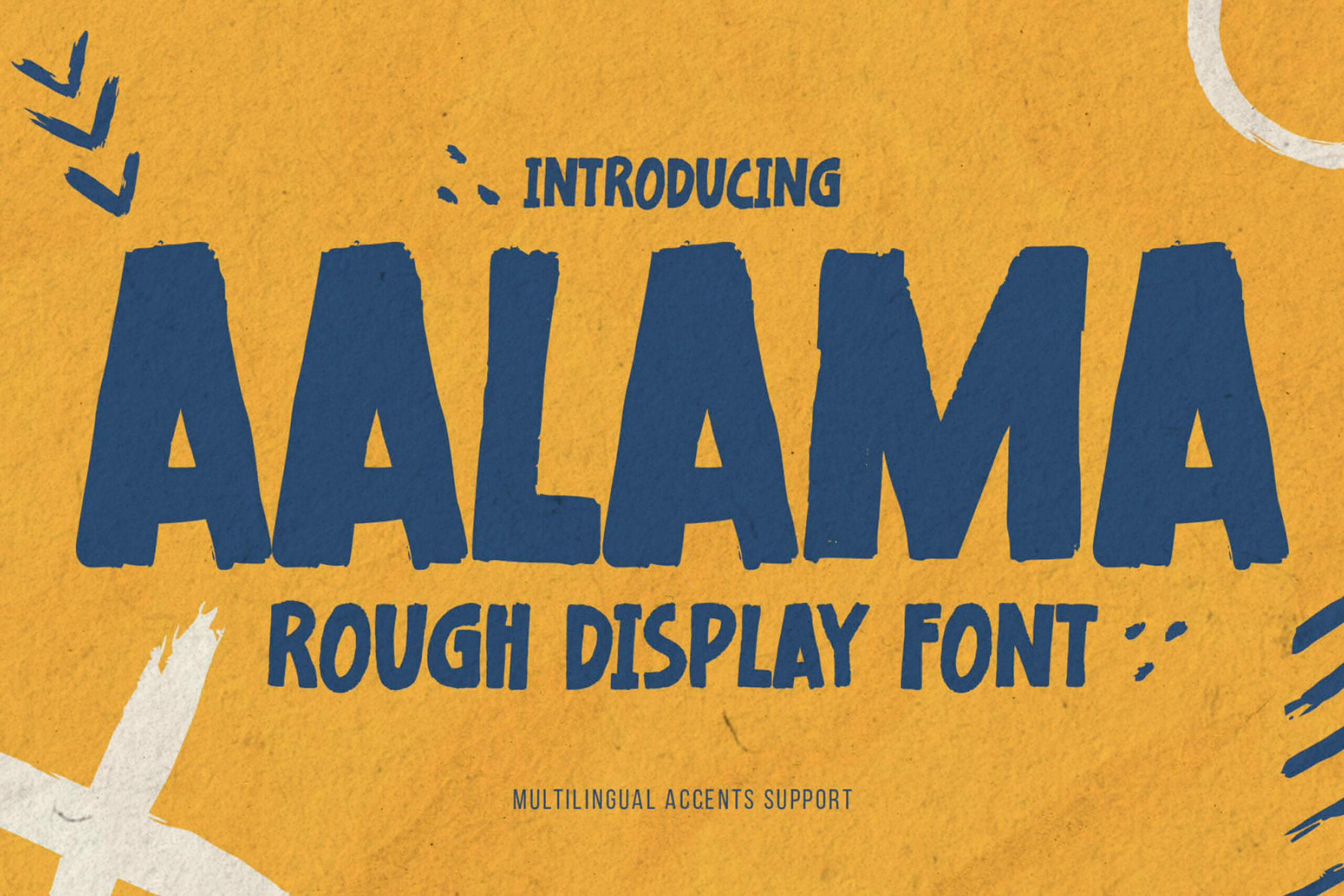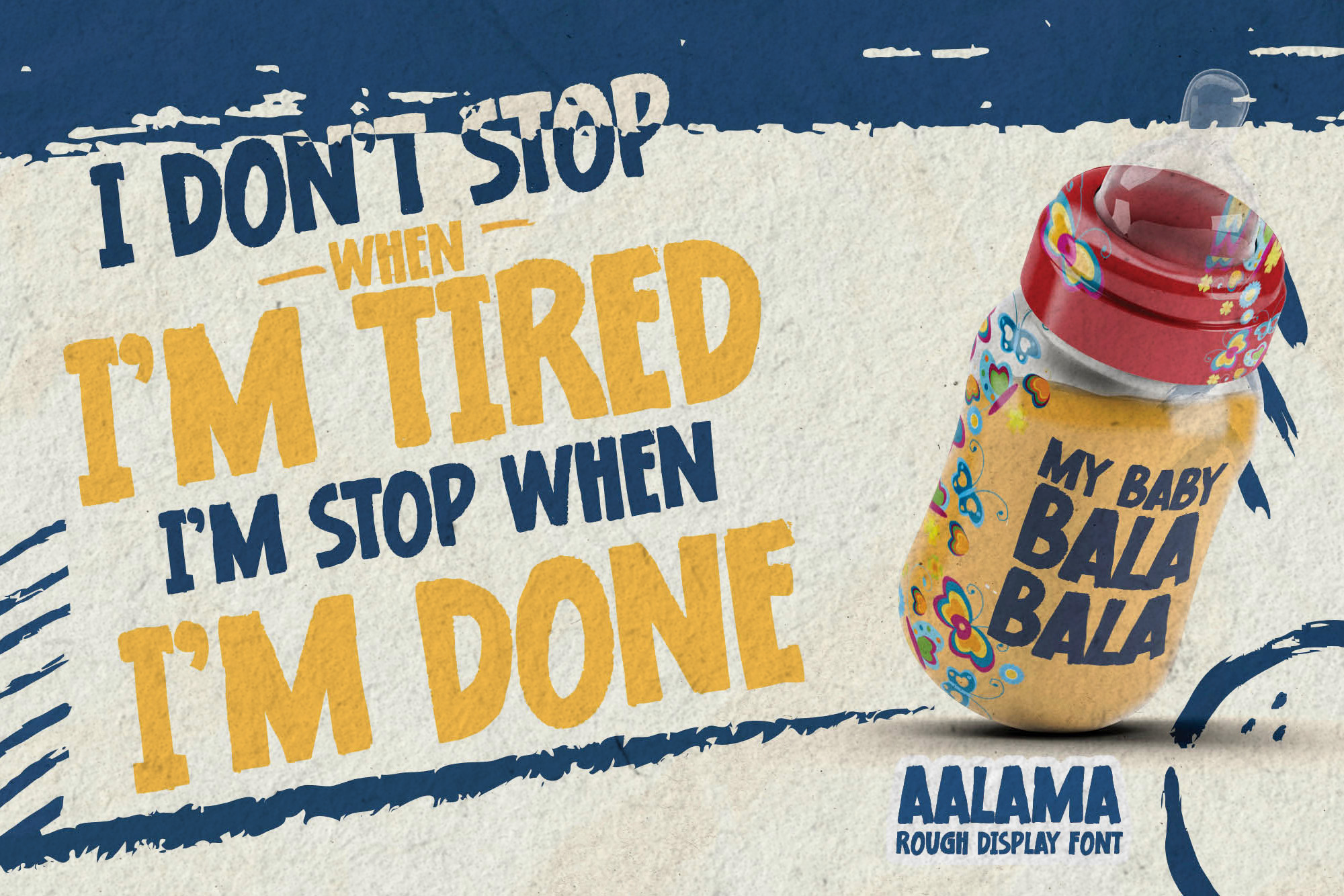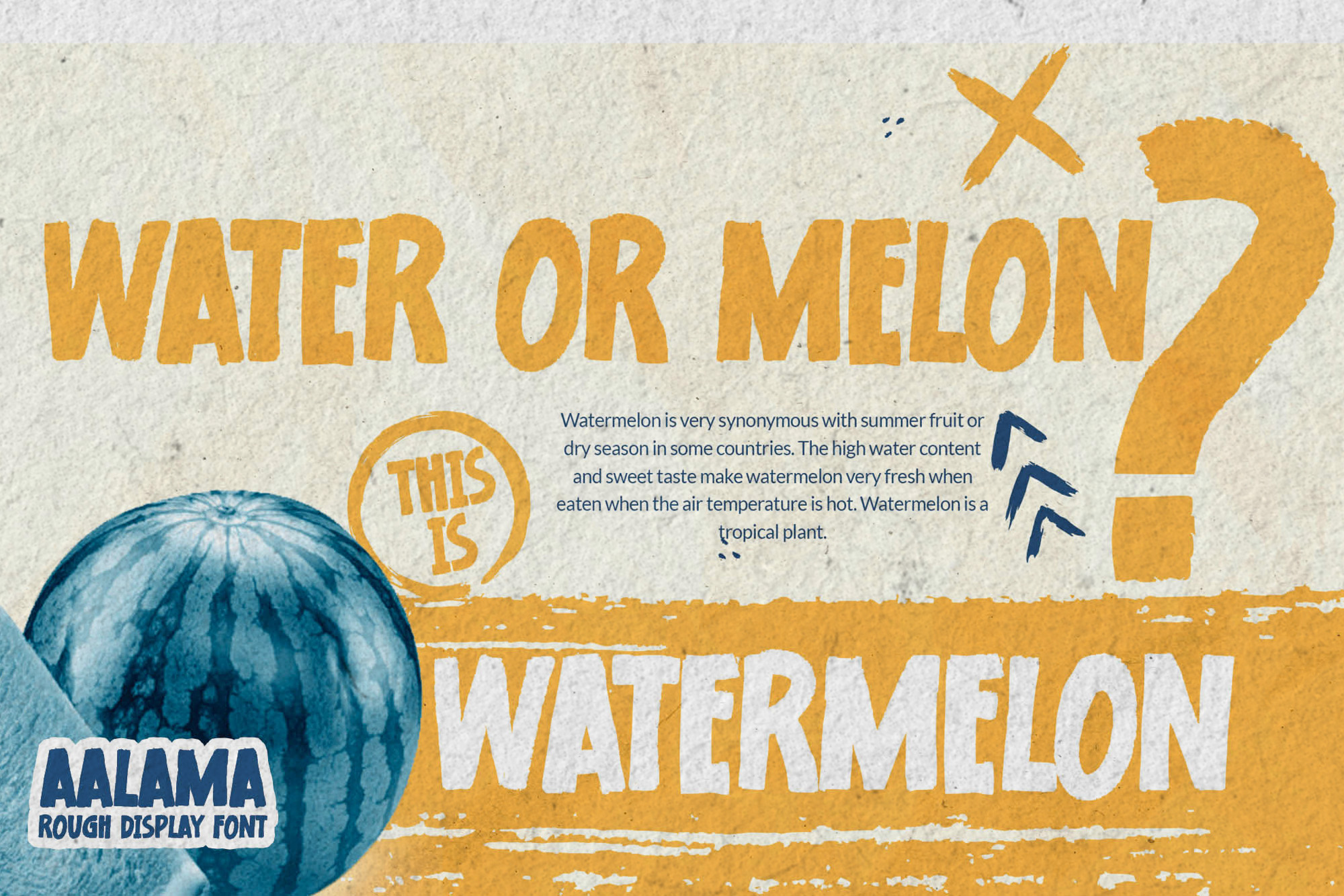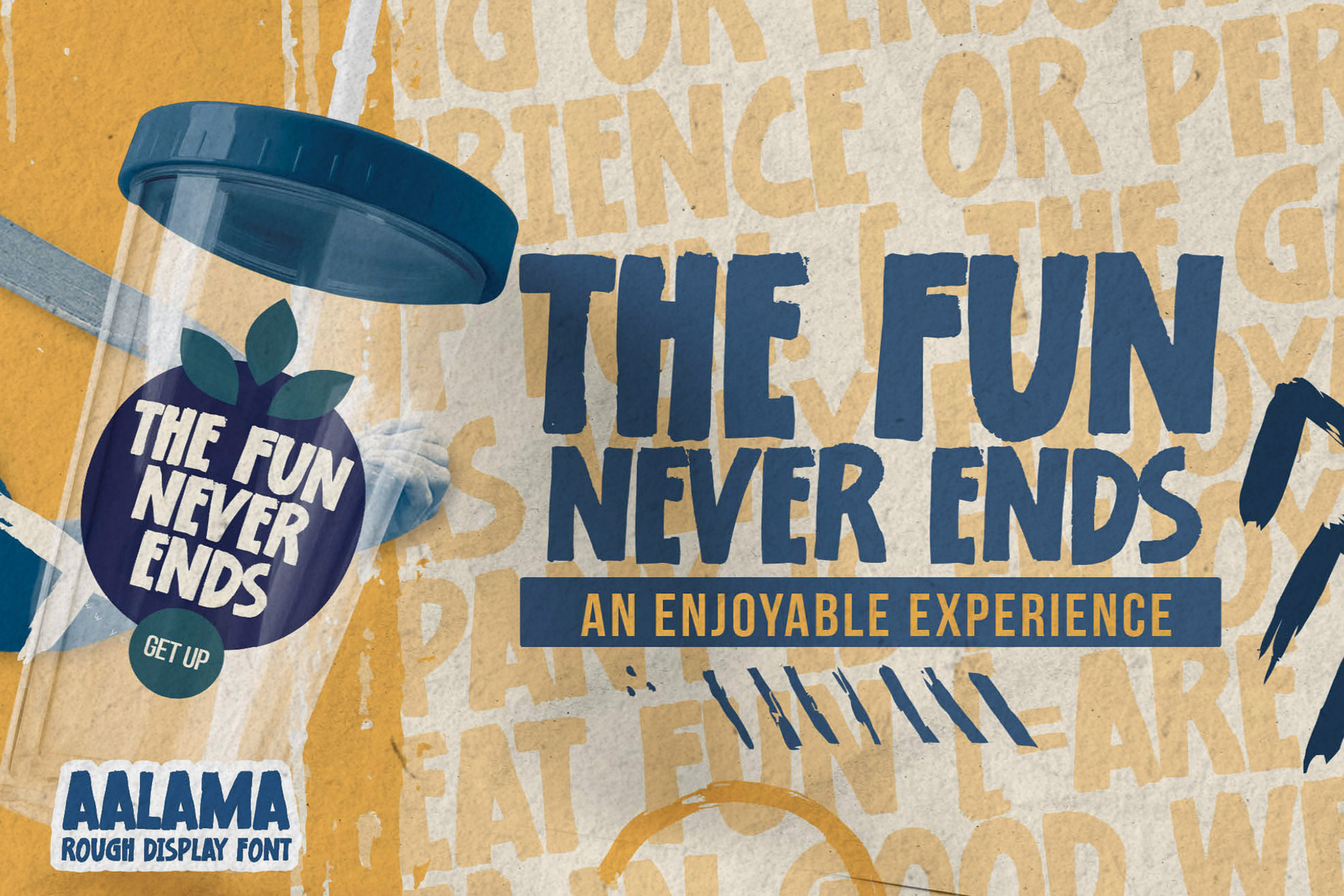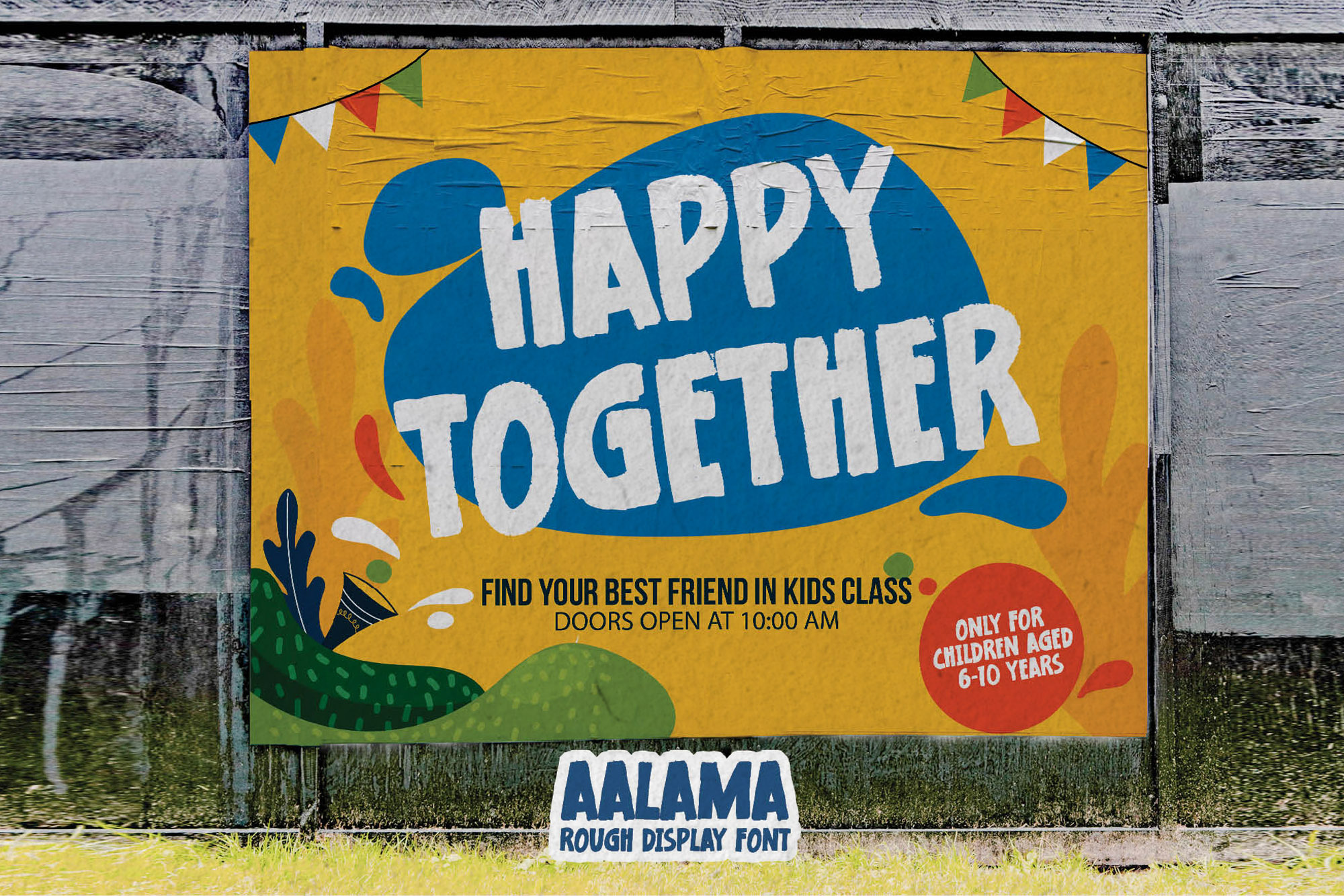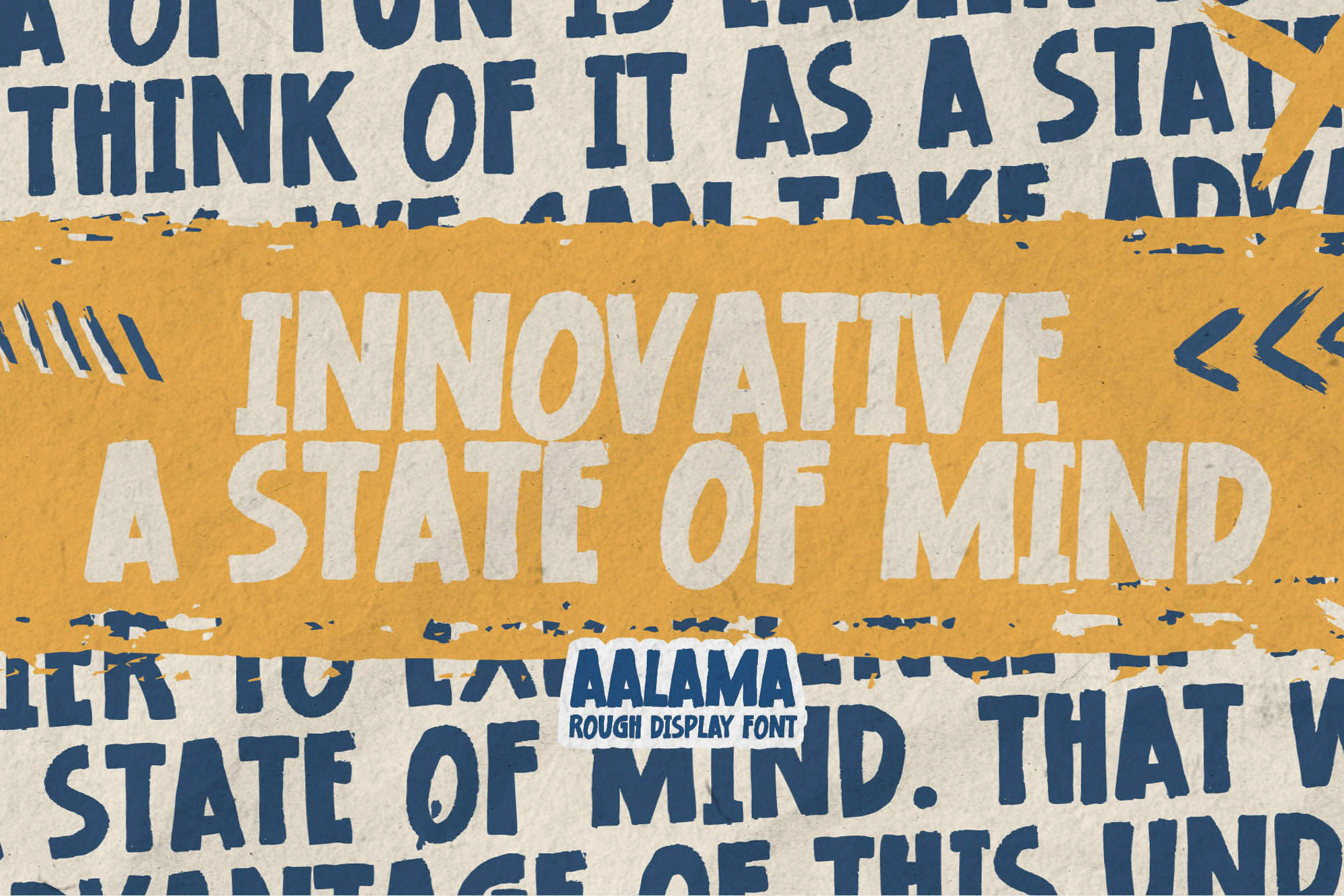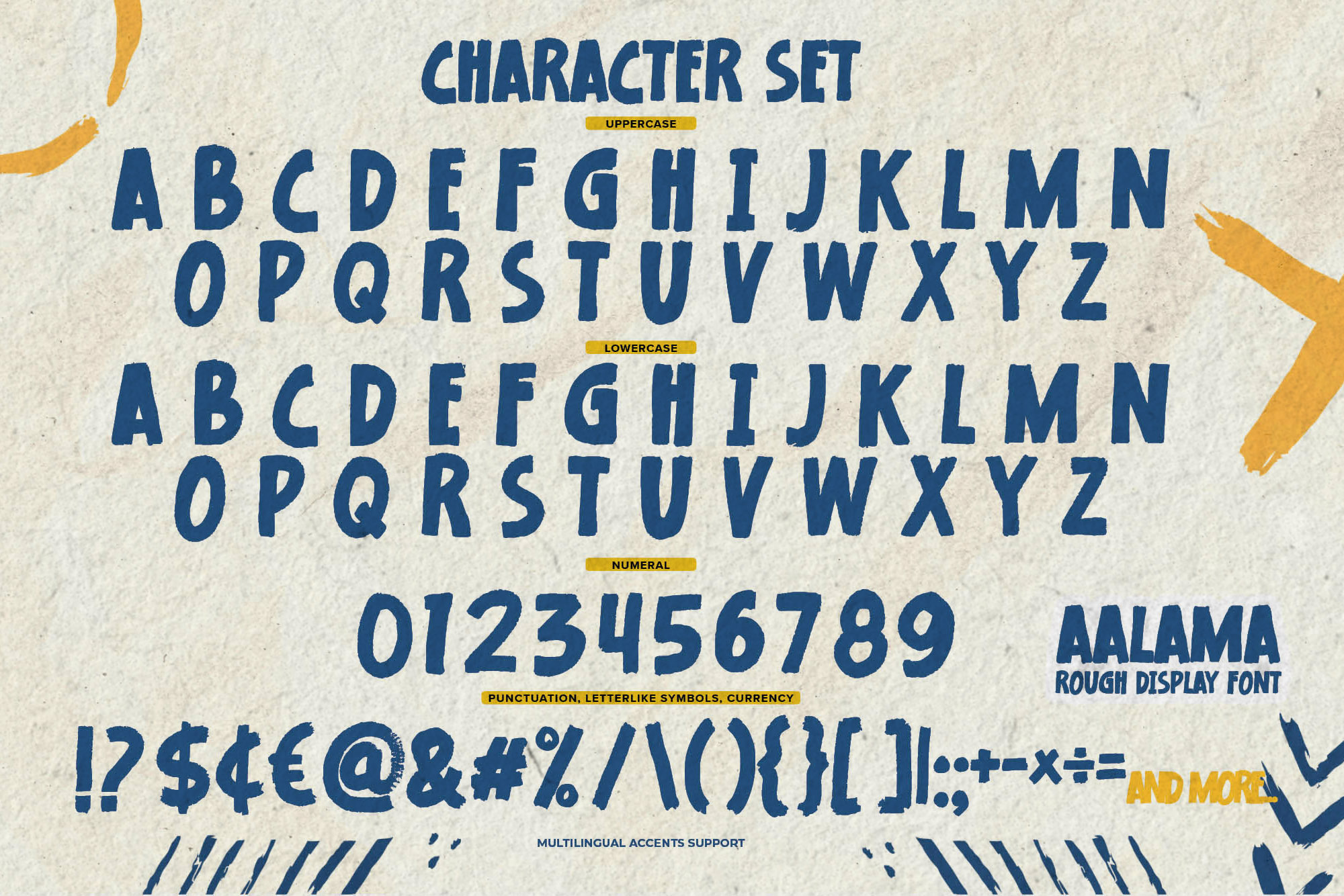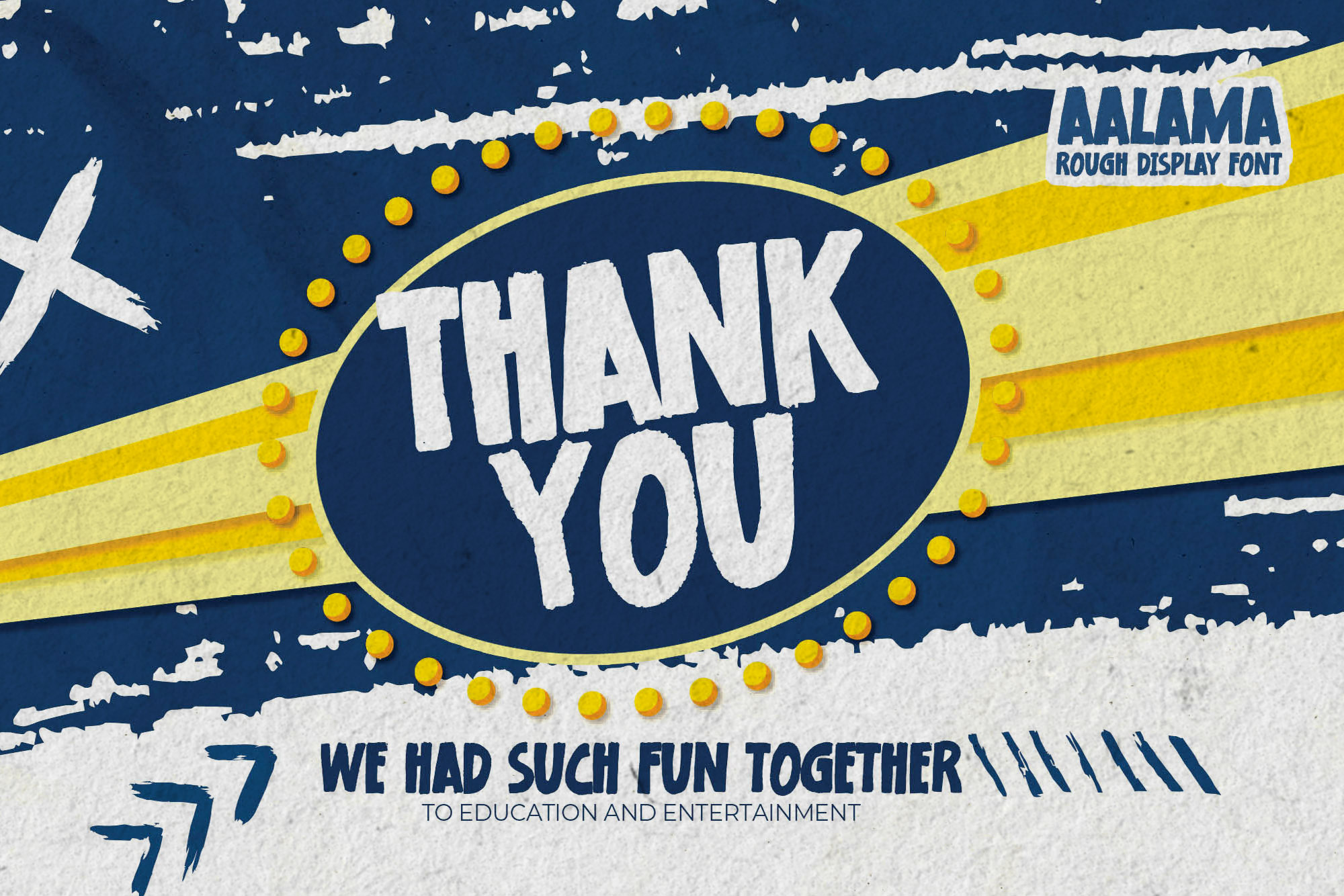
AALAMA – Rough Display Font,modern style and creative movement that is written casually and quickly.
The best for logo ,poster, project , designs look modern, unique and authentic sans. It’s perfect for labels, quotes, posters, DIY projects, branding, packaging, greeting cards, websites, photography overlays, signs, scrapbooking, tags and so much more! That is why AALAMA has a cool , and rough characteristic more natural look.